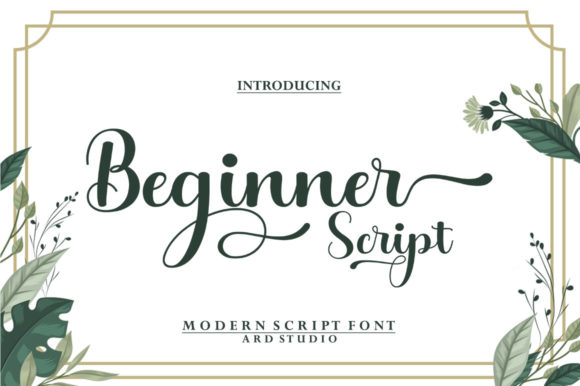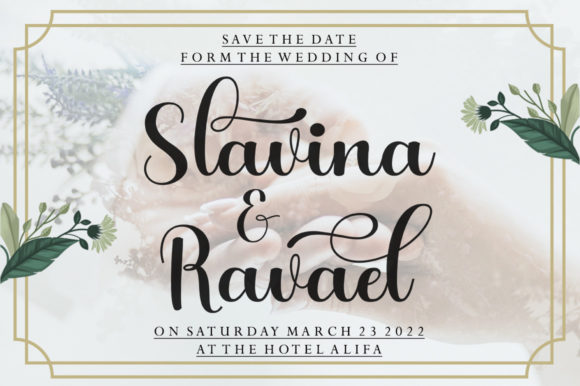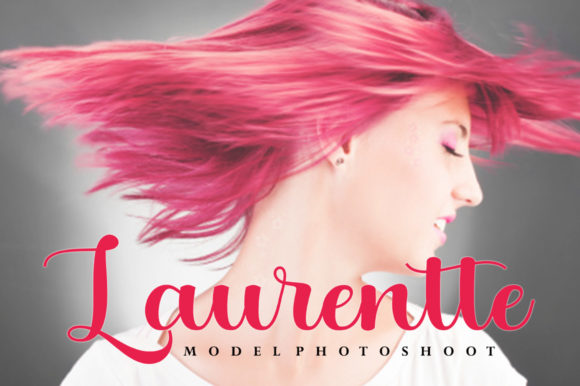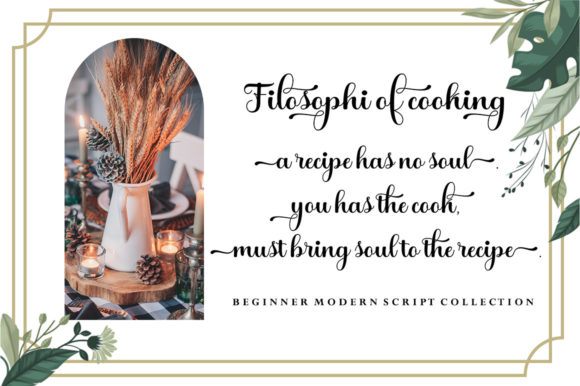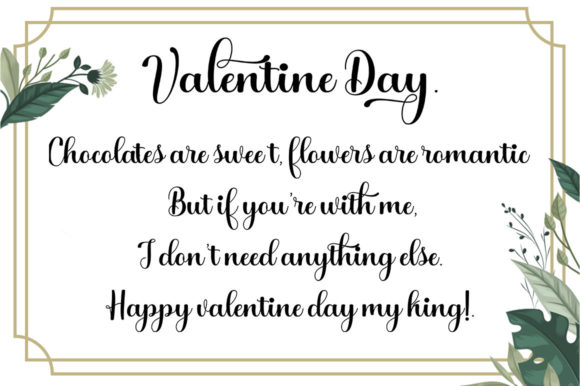
About Beginner Script Font
Beginner Script is a smooth, elegant and flowing handwritten font. It has a beautiful and balanced character and as a result, fits into a wide set of designs. This font is PUA encoded which means you can access all of the glyphs and swashes with ease!